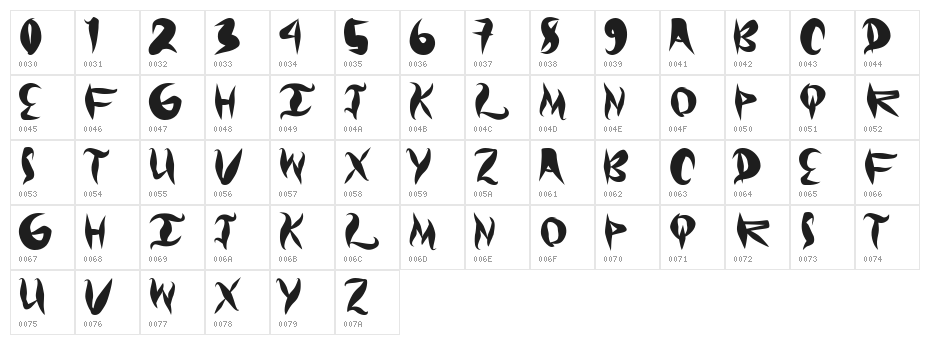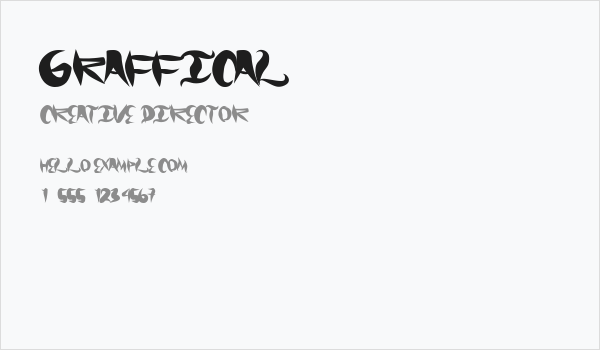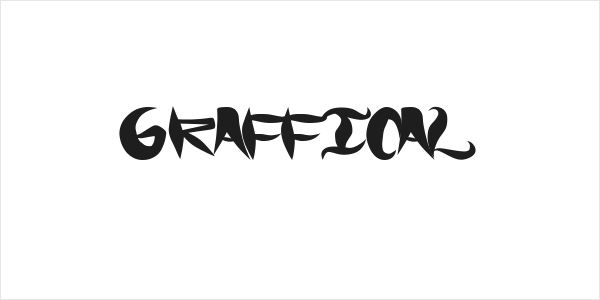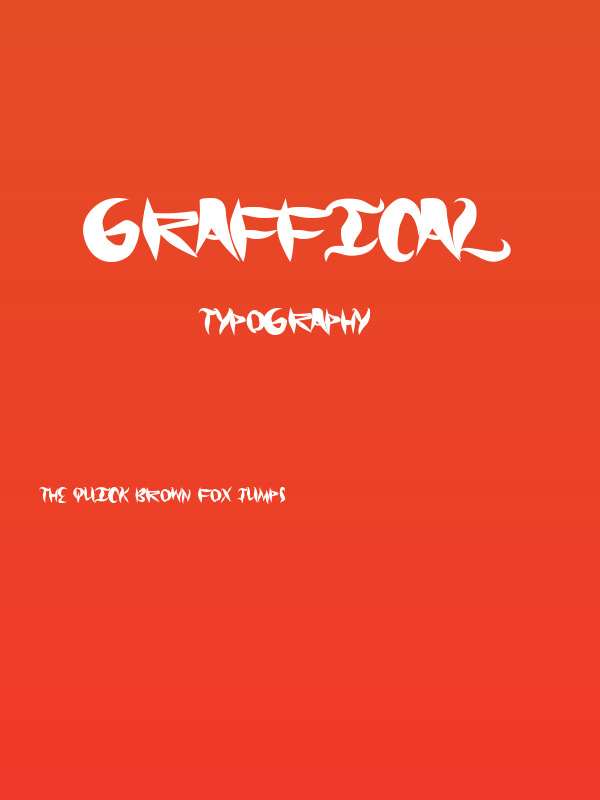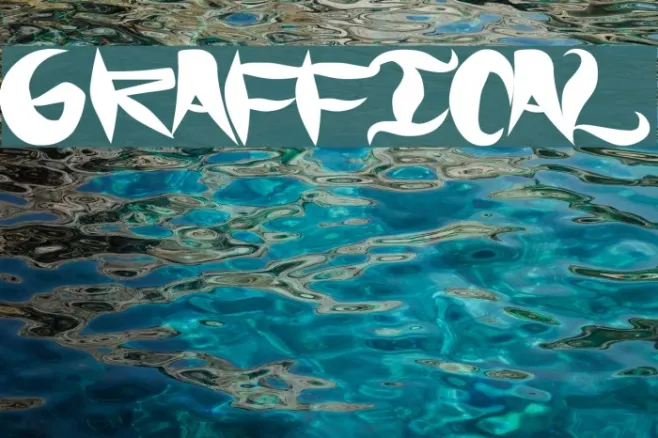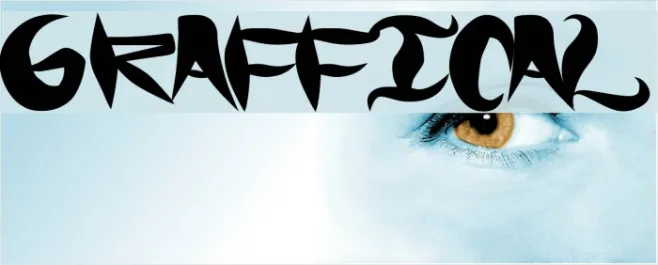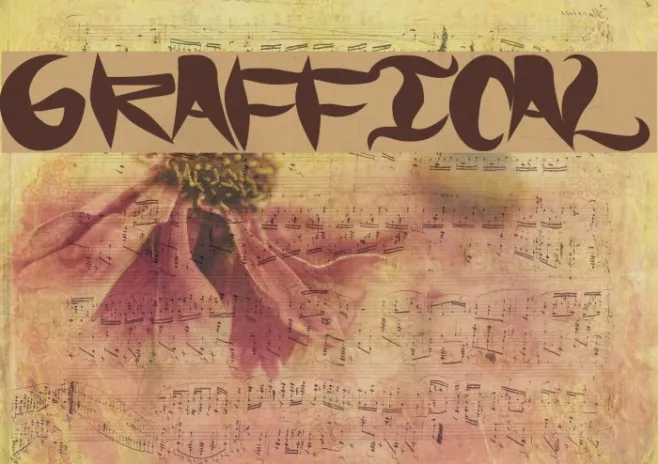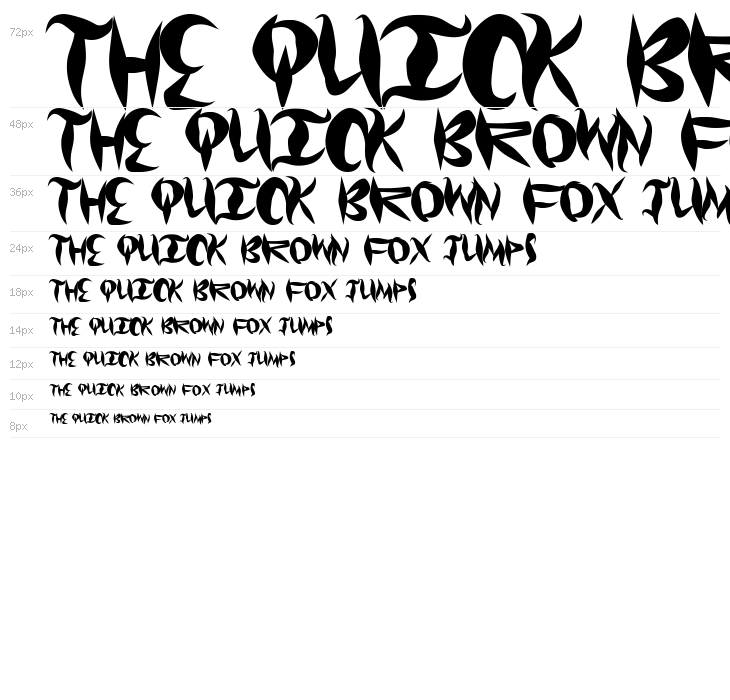
Graffical Font
Graffical Description
This font exhibits a bold, edgy style with sharp, angular lines and a graffiti-inspired aesthetic. The characters are highly stylized, featuring pointed edges and dynamic curves that create a sense of movement and energy. The uppercase and lowercase letters maintain a consistent design, emphasizing the font's unique personality. Numbers and special characters follow the same bold and artistic approach, making the font suitable for creative and unconventional projects. The overall appearance is striking and memorable, ideal for making a strong visual impact.
| Overall Style | Modern, Urban |
| Use Case | Logos, Posters, Album Covers |
| Proposed Projects | Ideal for street art designs, music album covers, urban-themed posters, and edgy branding projects. |